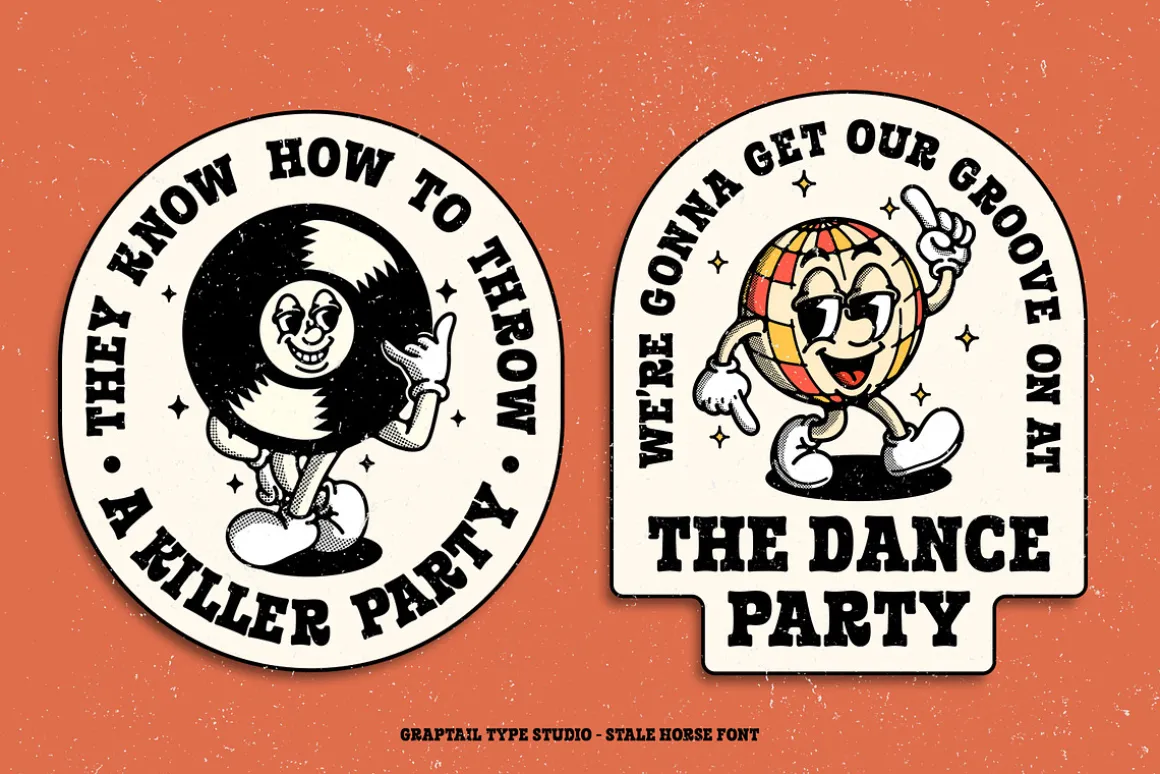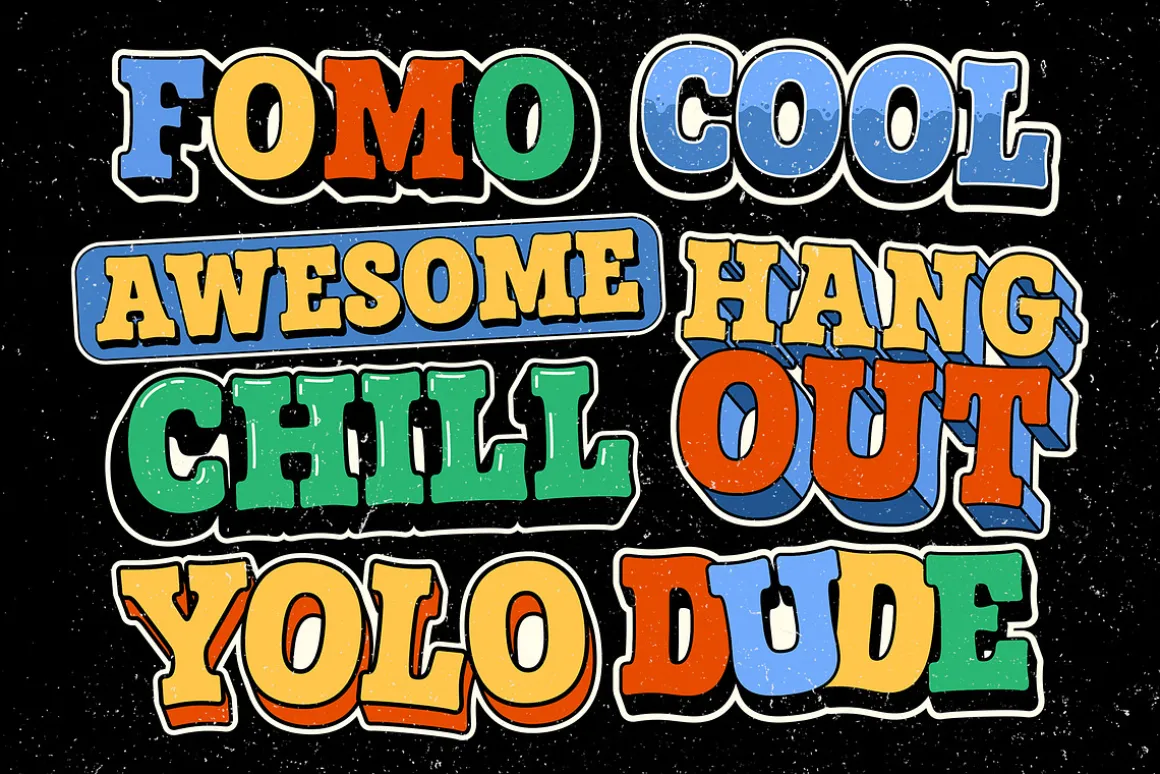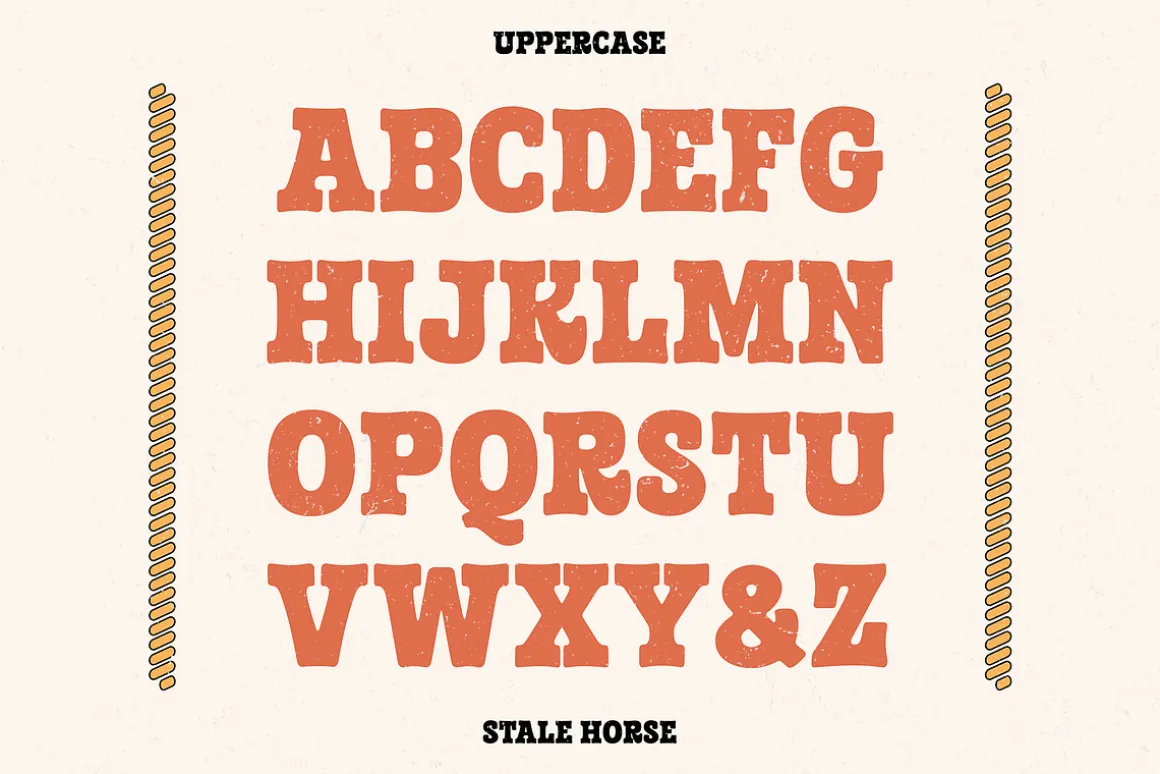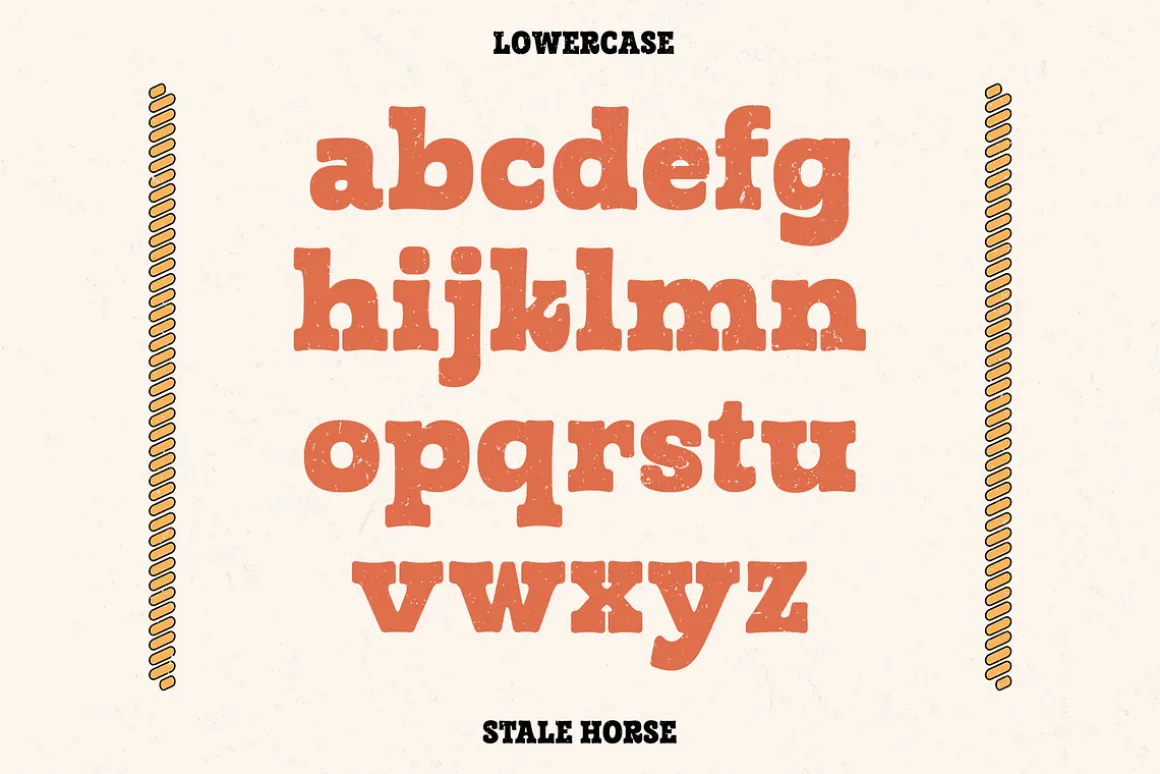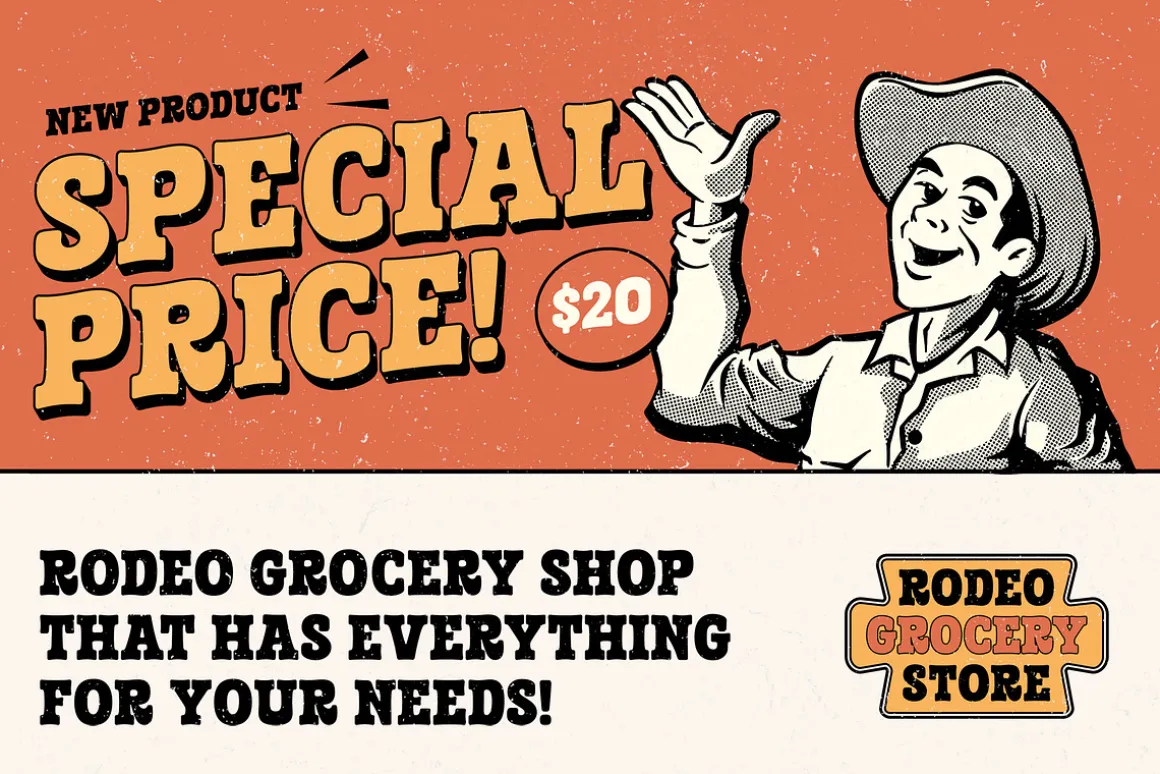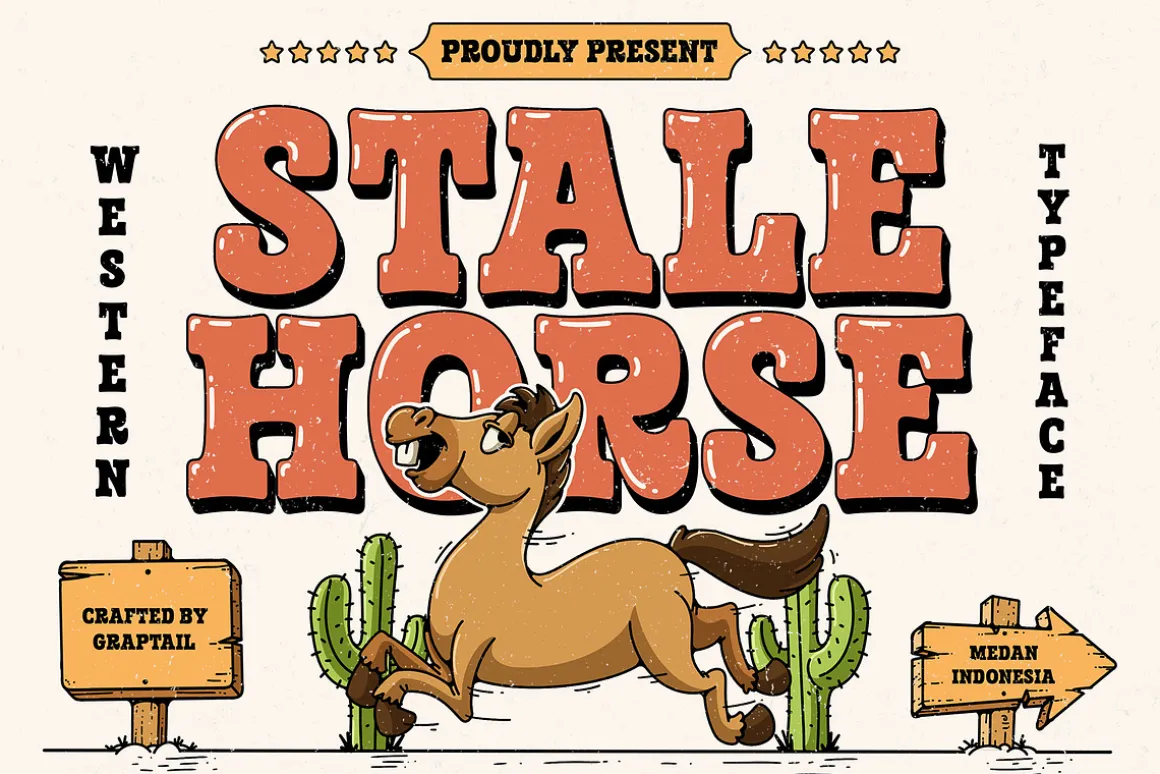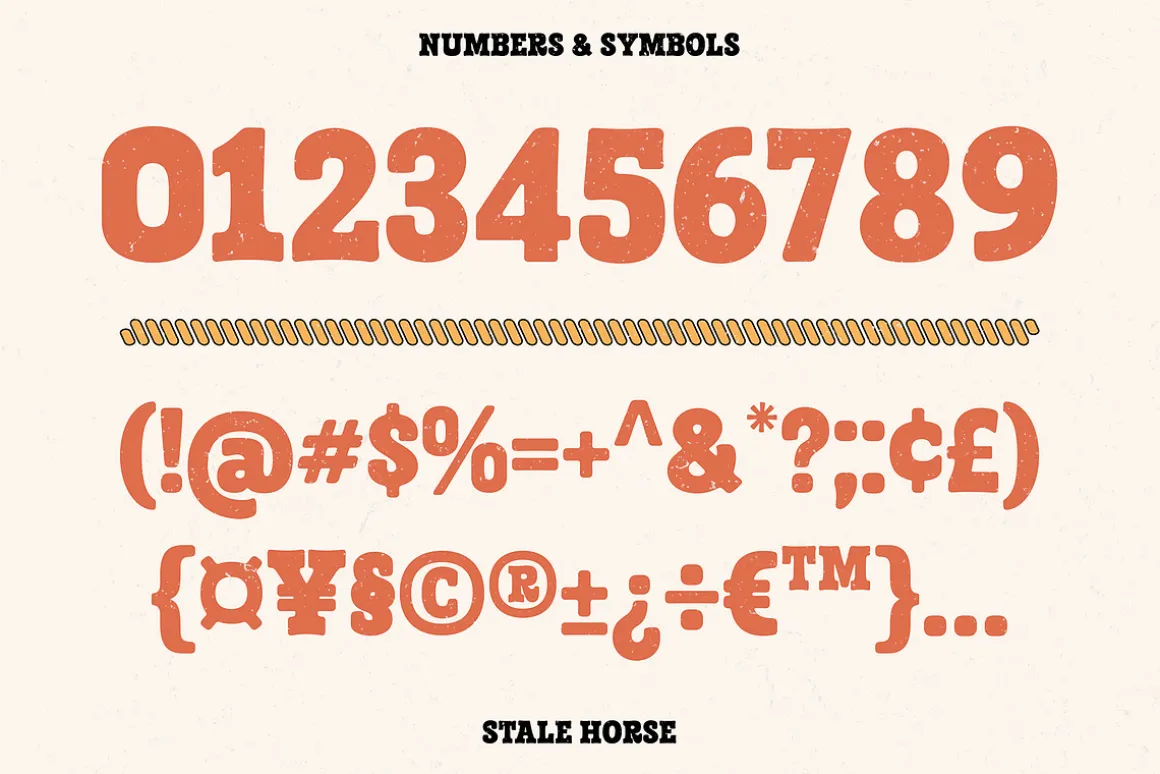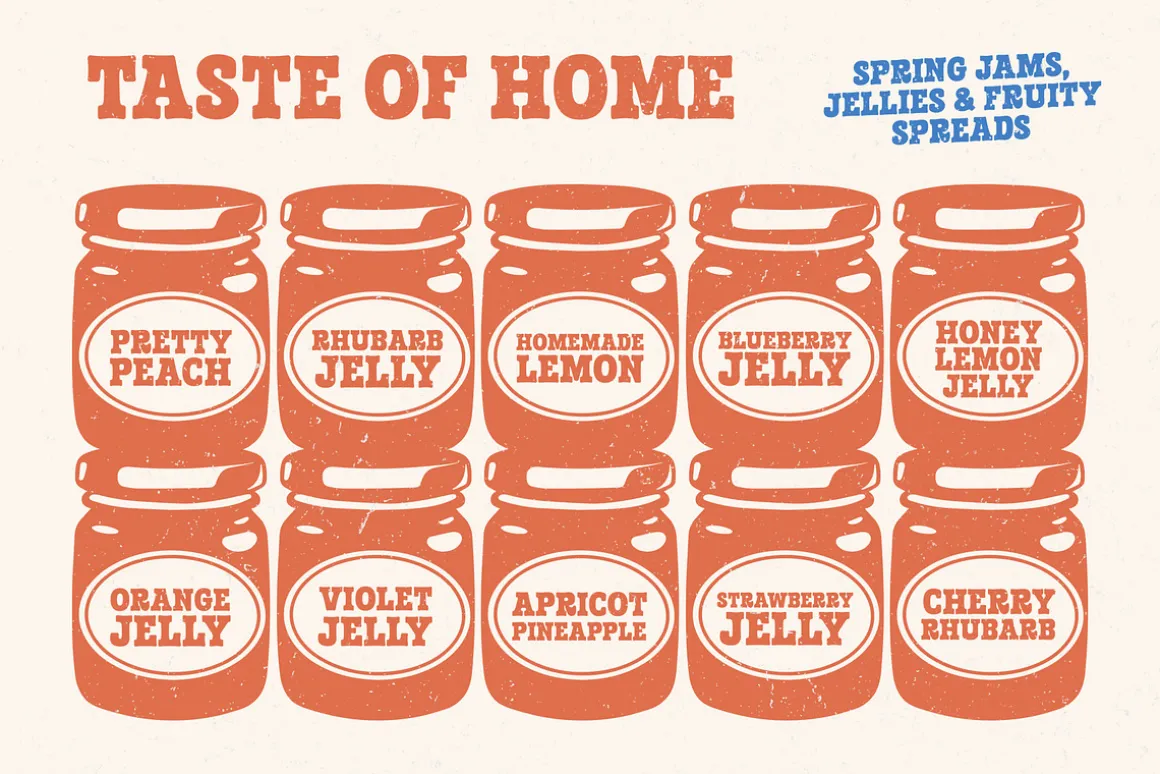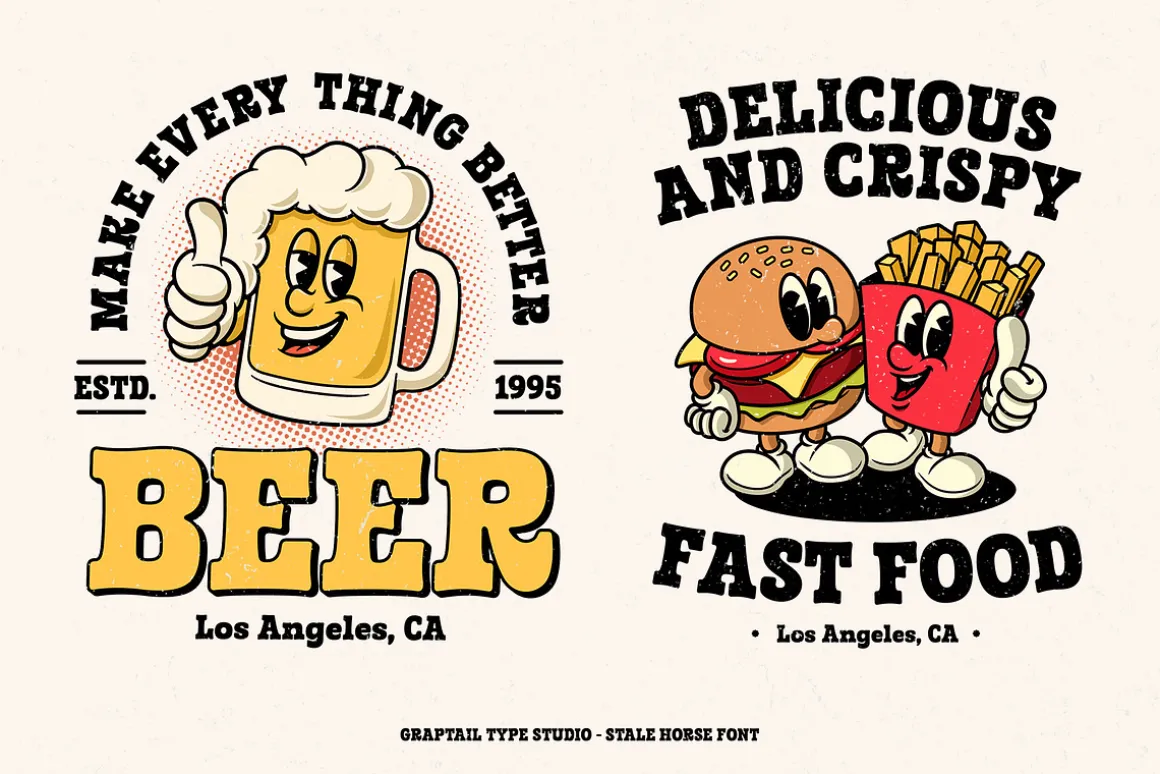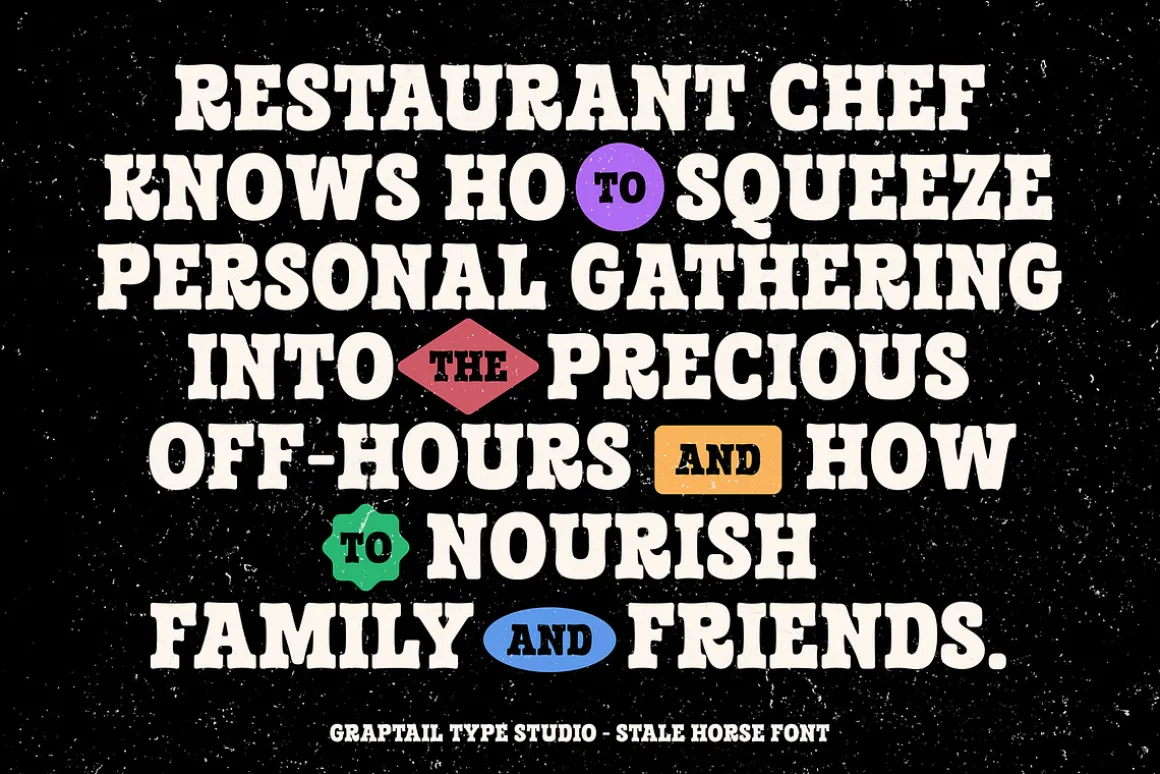
Stale Horse – Western Typeface
Welcome to a bold and stylish era of cowboys with Stale Horse – Western Typeface! This font delivers an unyielding classic touch and brings forth the powerful atmosphere of the Wild West.
With meticulous details and impressive characters, Stale Horse is perfect for projects that require a retro vibe with a cowboy twist. Utilize this font in logo designs, posters, merchandise, and other artwork to evoke an authentic and striking impression.
Stale Horse is the perfect choice for those looking to create distinct and captivating works with a classic Western Typeface touch!